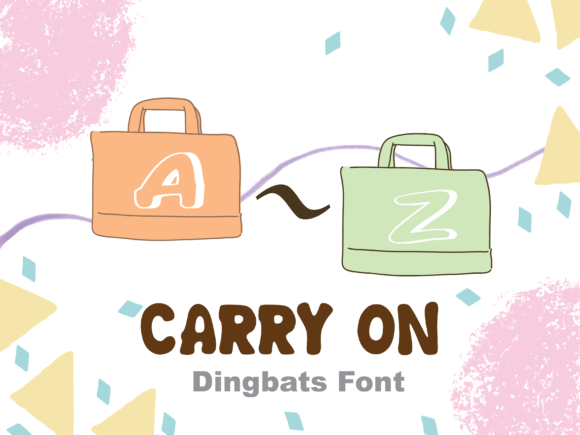
Unpacking Creativity with the Carry on Font
Who hasn’t experienced that moment of pure creative bliss when the perfect font suddenly pops up, and all your design ideas fall into place? It’s like stumbling upon a hidden treasure trove of inspiration. For designers, this magical moment can be the key to unlocking a project’s full potential. Recently, I discovered the Carry on Font, and I’m excited to share its charm with you.
Carry on Font is a delightful typeface that brings a touch of whimsy and playfulness to any project. Its unique design features letters in bags, making it perfect for use in children’s books, packaging, and greeting cards. This quirky and imaginative font is sure to captivate viewers and add a personal touch to your designs.
- Unique Characteristics: This font features a distinctive, modern design with a friendly and approachable feel, making it suitable for a wide range of applications, including corporate branding, advertising, and editorial content.
Carry on Font Review
Carry on Font is a fun, energetic display font that’s perfect for adding some personality to your designs. Here are the things that I think work well: ✨
- Expressive and playful feel
- Highly legible, even at large sizes
- Good range of weights and styles
- May not be suitable for body text or long blocks of text due to its display-oriented design
- Not as versatile as some other display fonts, may not work well for complex layouts
- Lack of italic and bold italic styles
Overall, I think Carry on Font is a great choice for designers who want to add some whimsy and fun to their projects. It’s perfect for headings, titles, and short blocks of text, but may not be the best fit for longer forms of content. With its expressive feel and good legibility, it’s definitely worth considering for your next design project.
The Carry On Font is perfect for:
Creative marketing materials, such as posters and flyers.
Branding and logo design.
Editorial content, such as articles and blog posts.